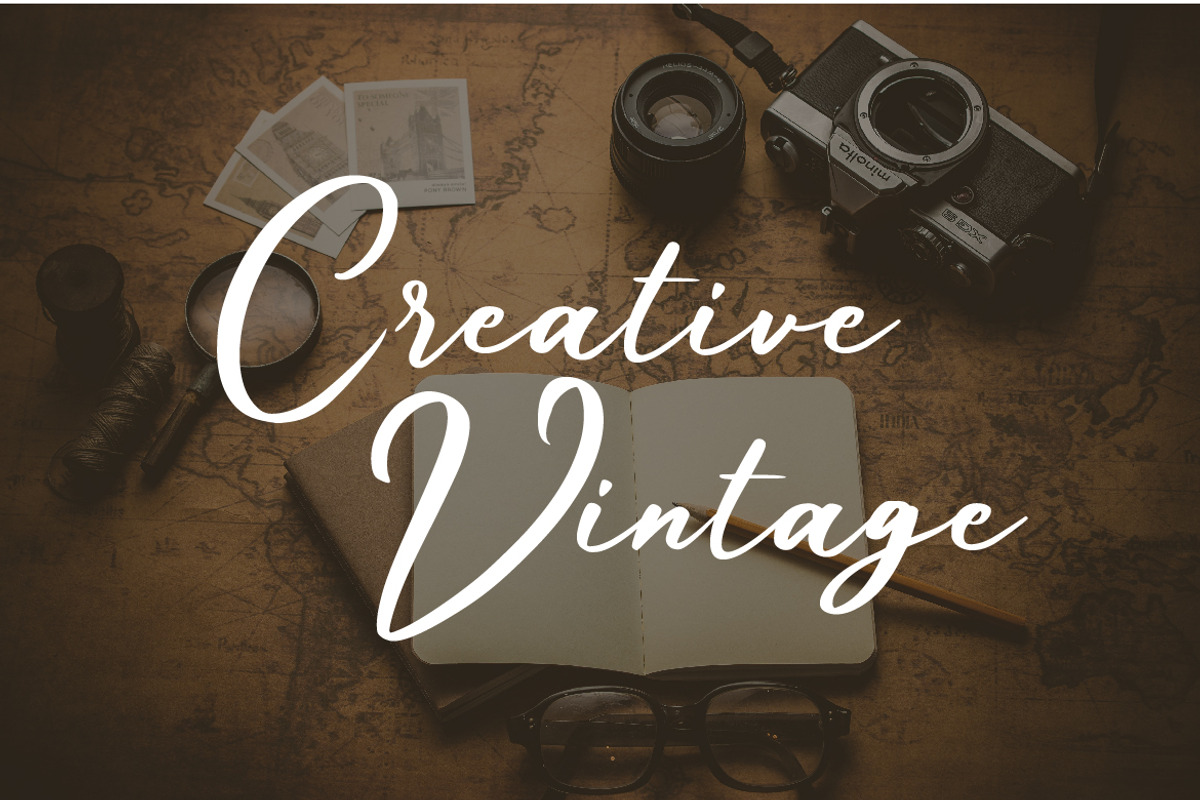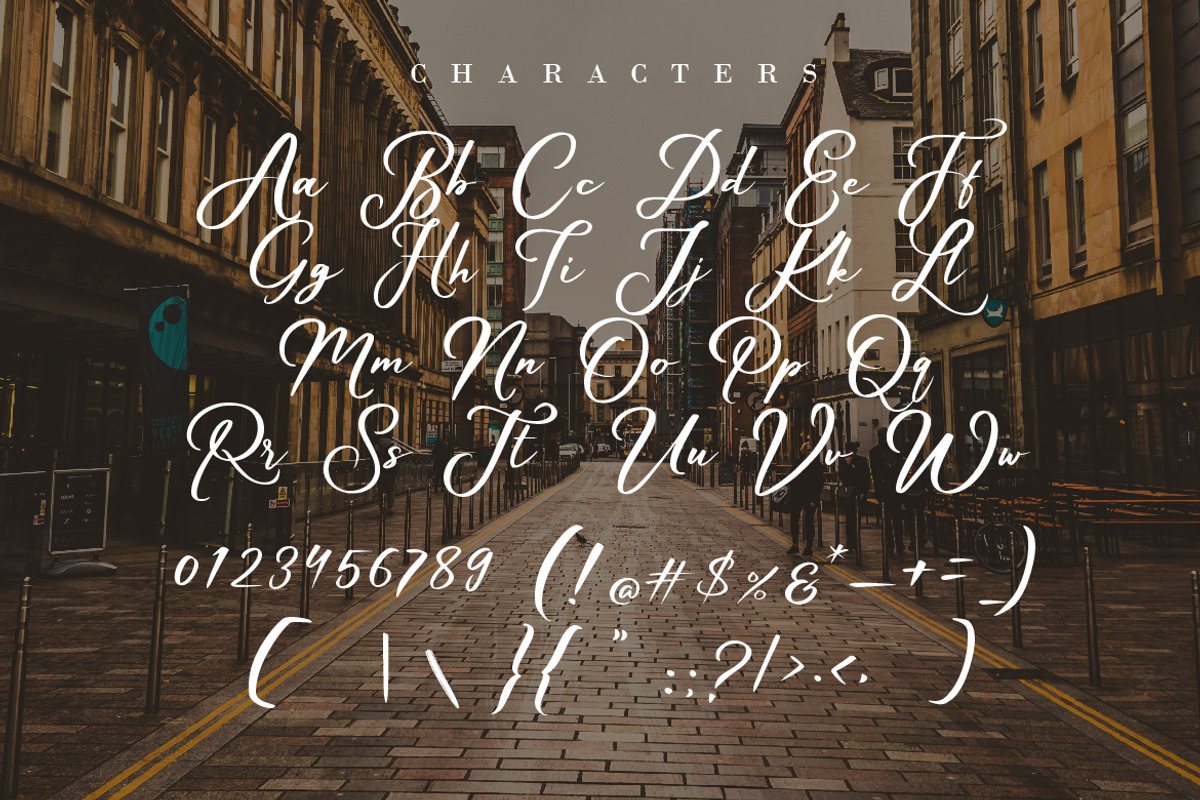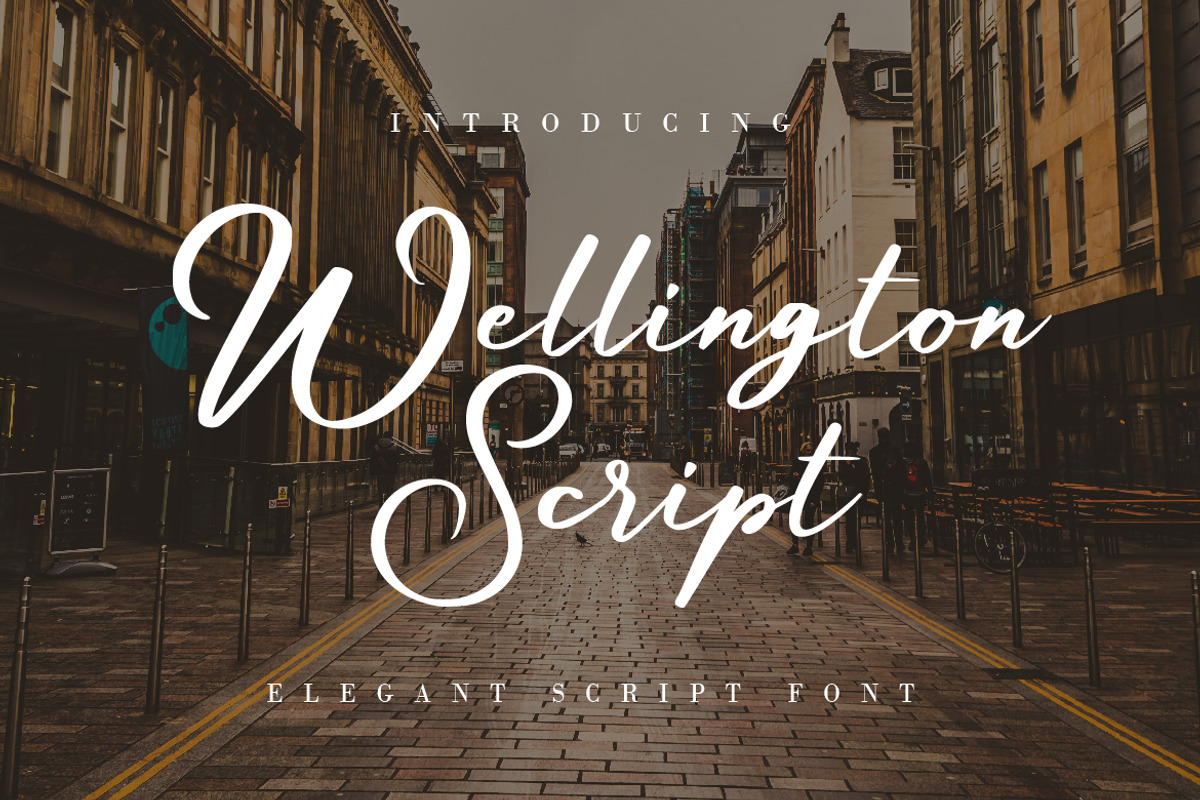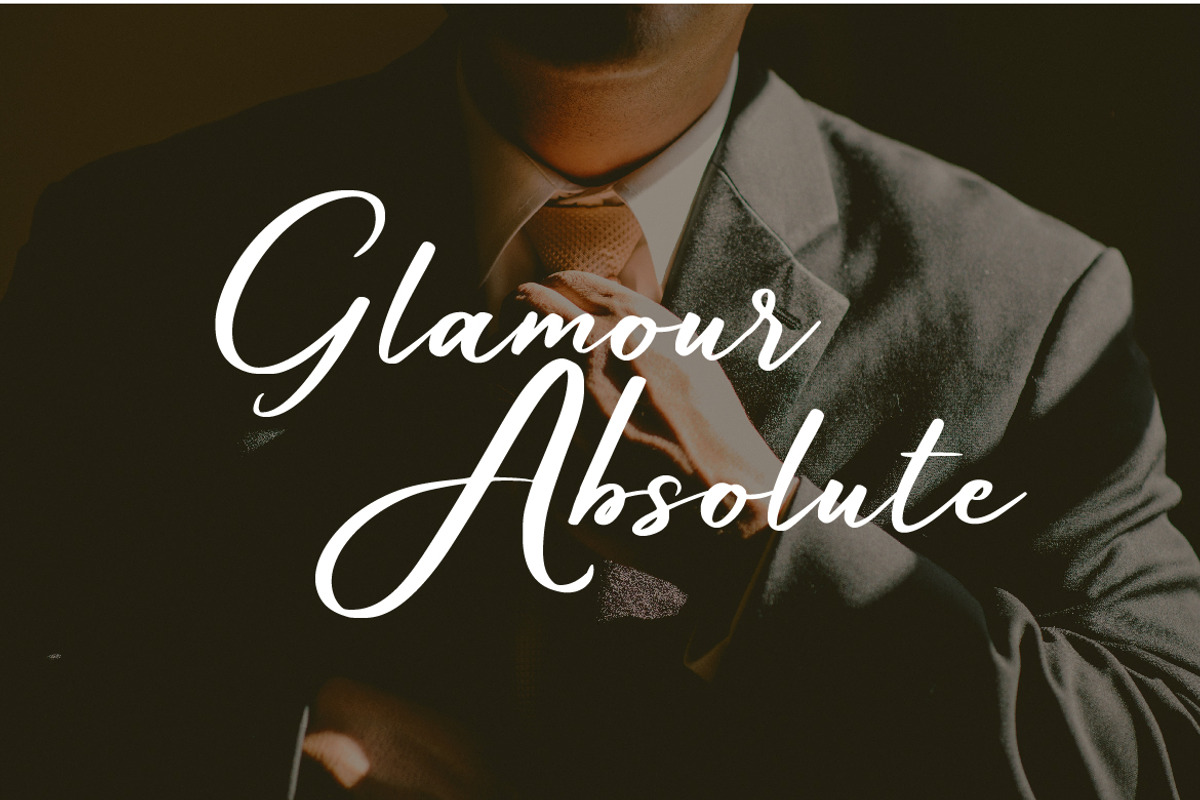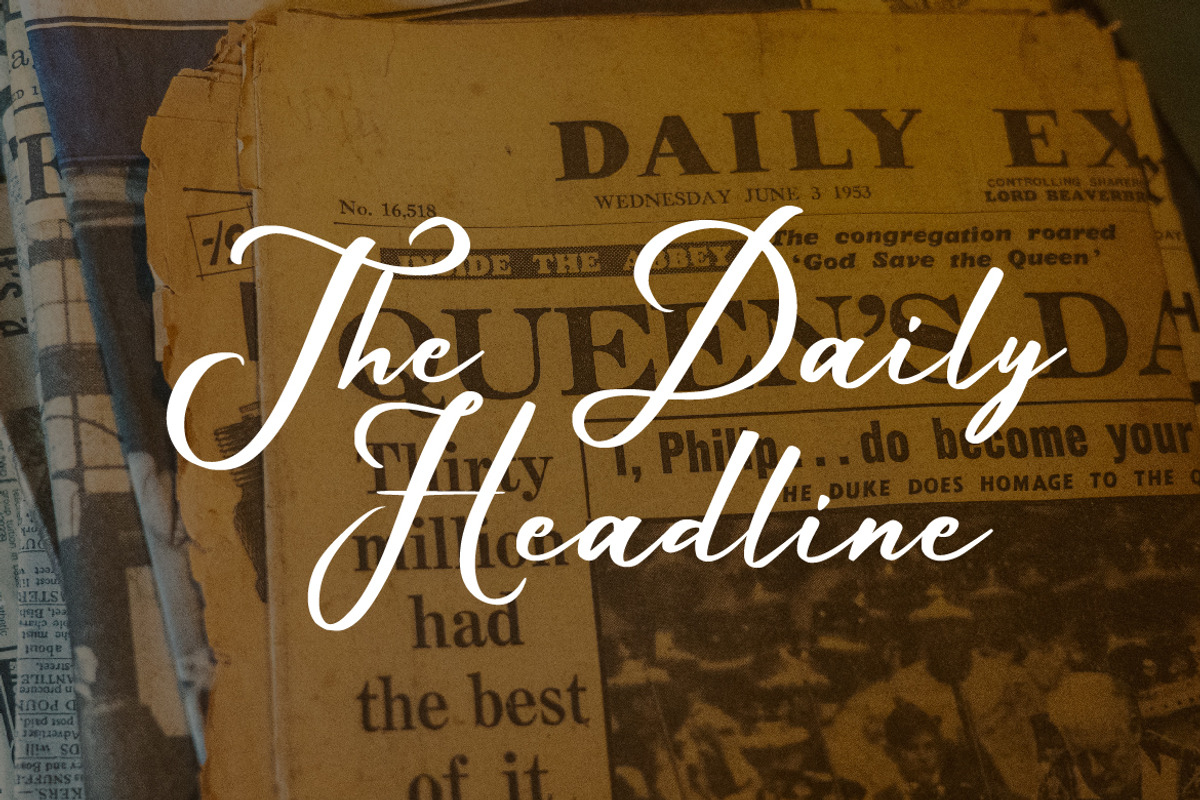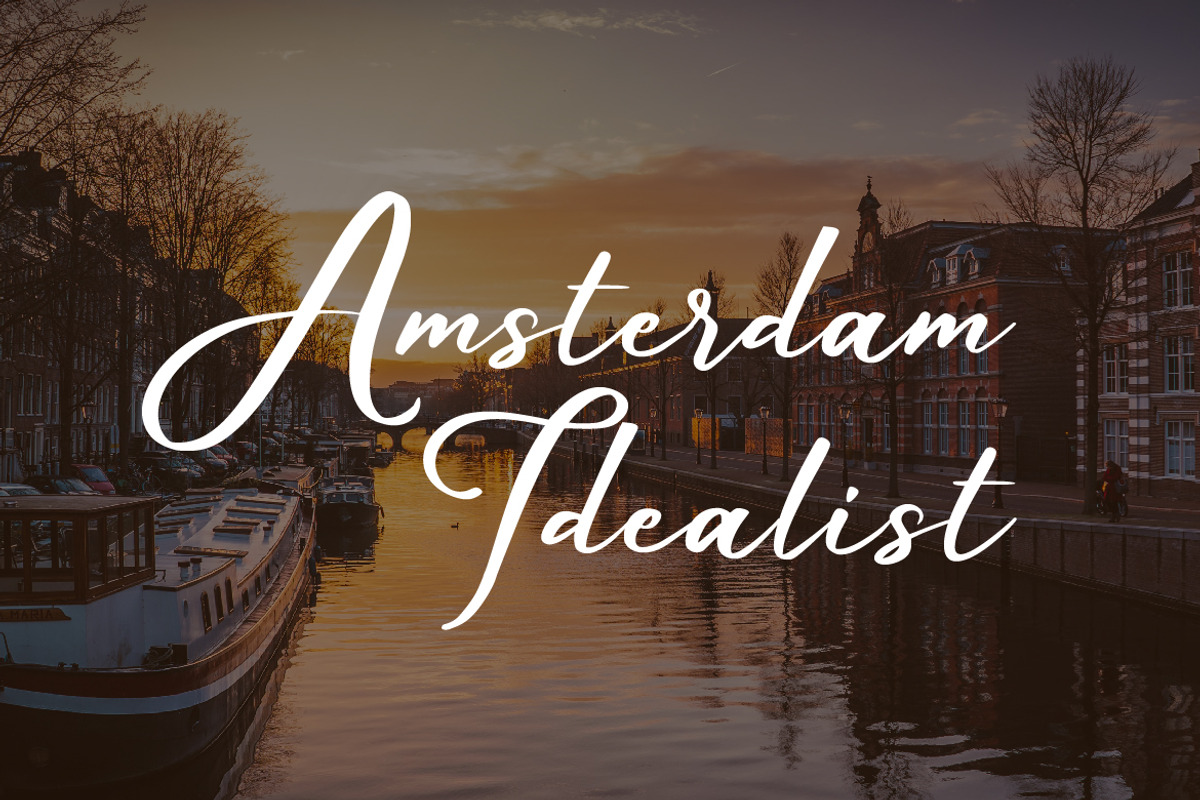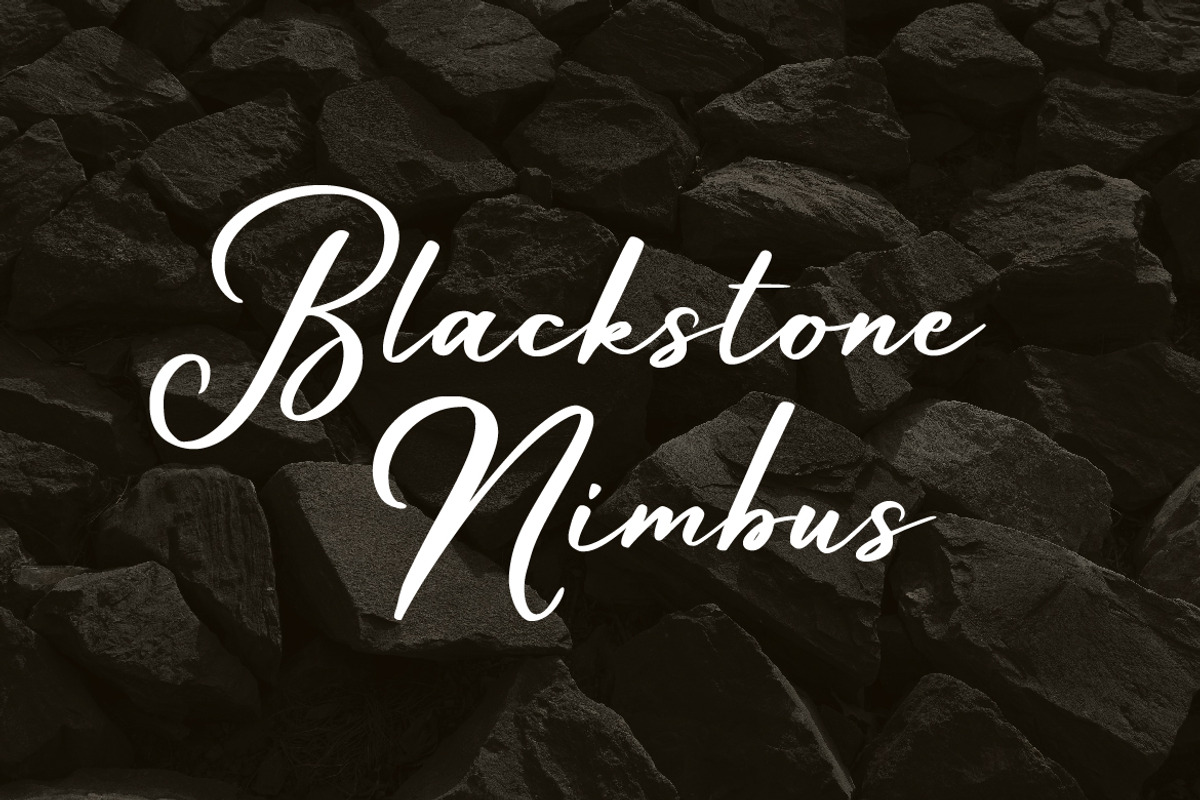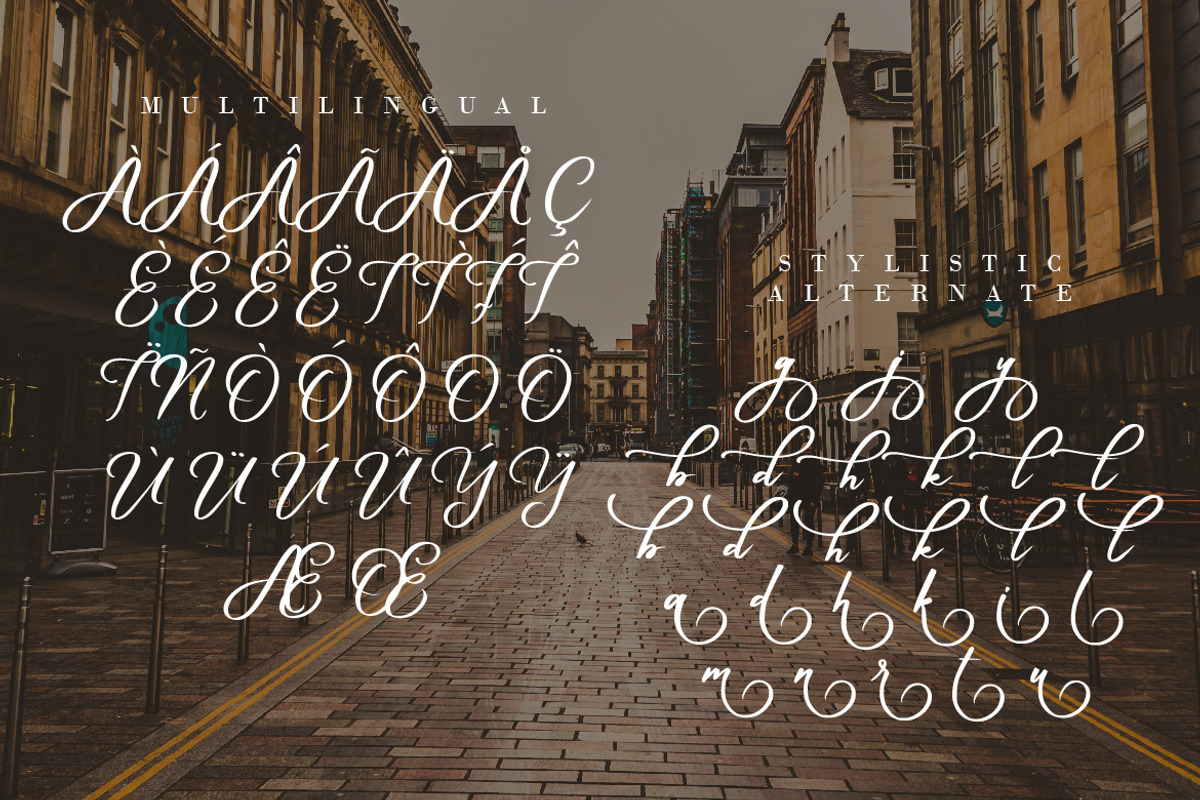
Wellington Script
Wellington Script is The latest Brush Script created using a calligraphy brush pen with procreate, so suitable for your elegant design
- Number & Punctuation
- Multiple Language & Stylistic Alternate